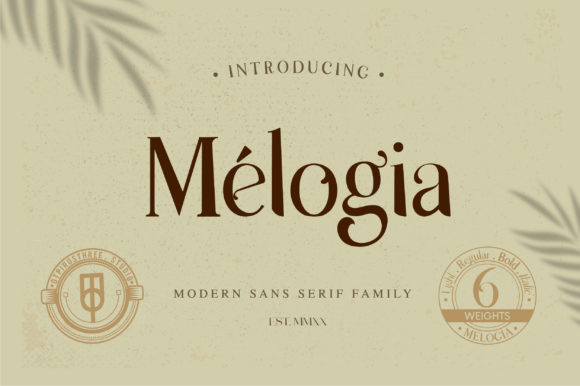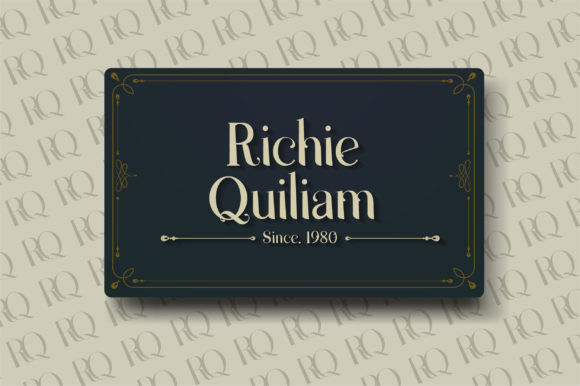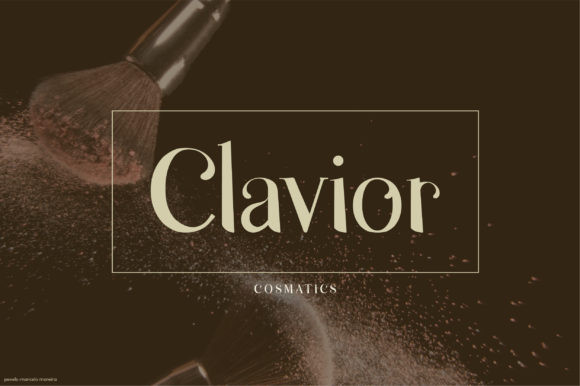
Melogia Font
Melogia is a modern and delicate serif font. Fall in love with its authentic feel and use it to create gorgeous wedding invitations, beautiful stationary art, eye-catching social media posts, and cute greeting cards.